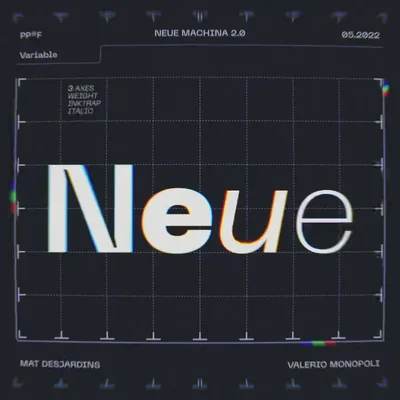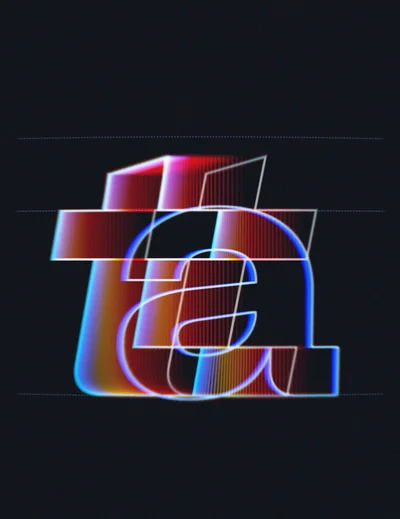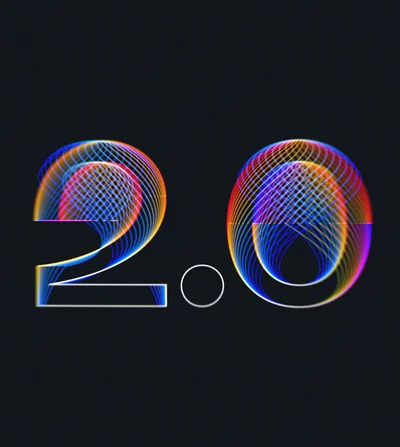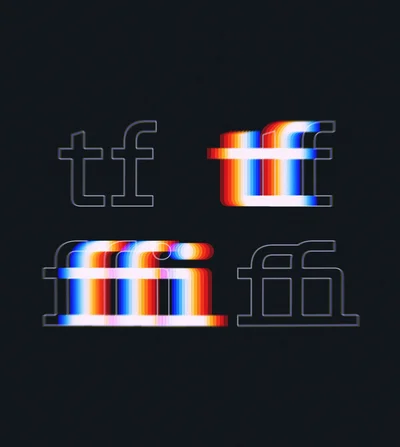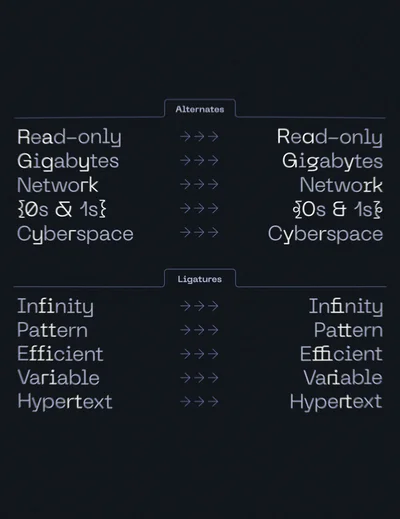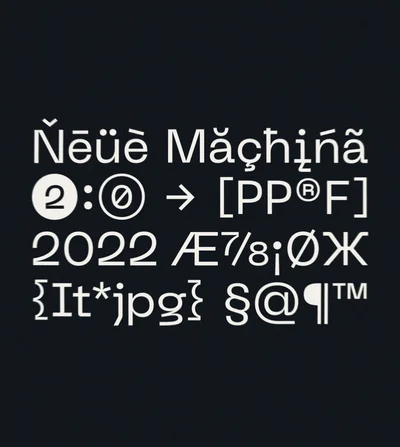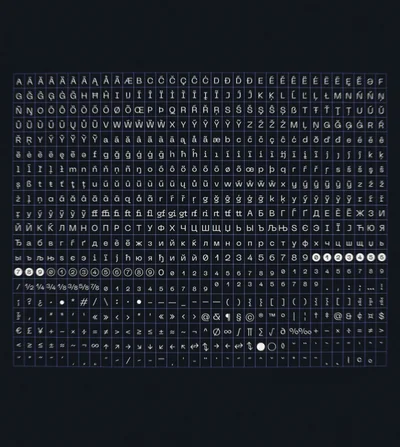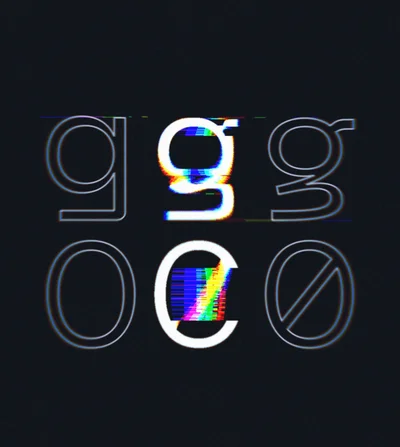
Inter vs PP Neue Machina
Inter is a popular open-source alternative to PP Neue Machina's expressive design. At 75% similarity, Inter delivers a modern, clean aesthetic. Compare which works better for display and branding projects.
75% Similarity
Feature Inter PP Neue Machina
Classification sans-serif sans-serif
Variable Font Yes No
Weights Variable (100-900) Multiple
Italics Yes Yes
Language Support latin, latin-extended, cyrillic, cyrillic-extended, greek, greek-extended, vietnamese latin, latin-extended
Source Google Fonts Pangram Pangram
Recommended: Inter
• Shares PP Neue Machina's modern character
• Variable font with continuous weight adjustment
• Supports 7 scripts including cyrillic and cyrillic-extended
• Delivers a modern, clean, professional aesthetic
• Popular in enterprise-corporate and financial-services design
Consider: PP Neue Machina
• Original design with refined typographic details
• Designed specifically for display and branding